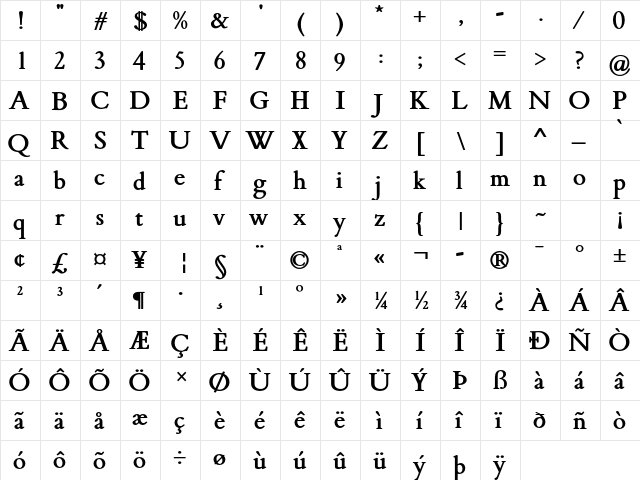
Flanker Griffo Bold
| Foundry | Flanker |
| Designer | Francesco da Bologna, Leonardo Di Lena |
Design Context for Flanker Griffo Typeface
Flanker Griffo takes a measured approach to typography — its balanced proportions and neutral character make it a reliable workhorse for both digital and print work. The heavy weight commands attention and anchors typographic hierarchies.